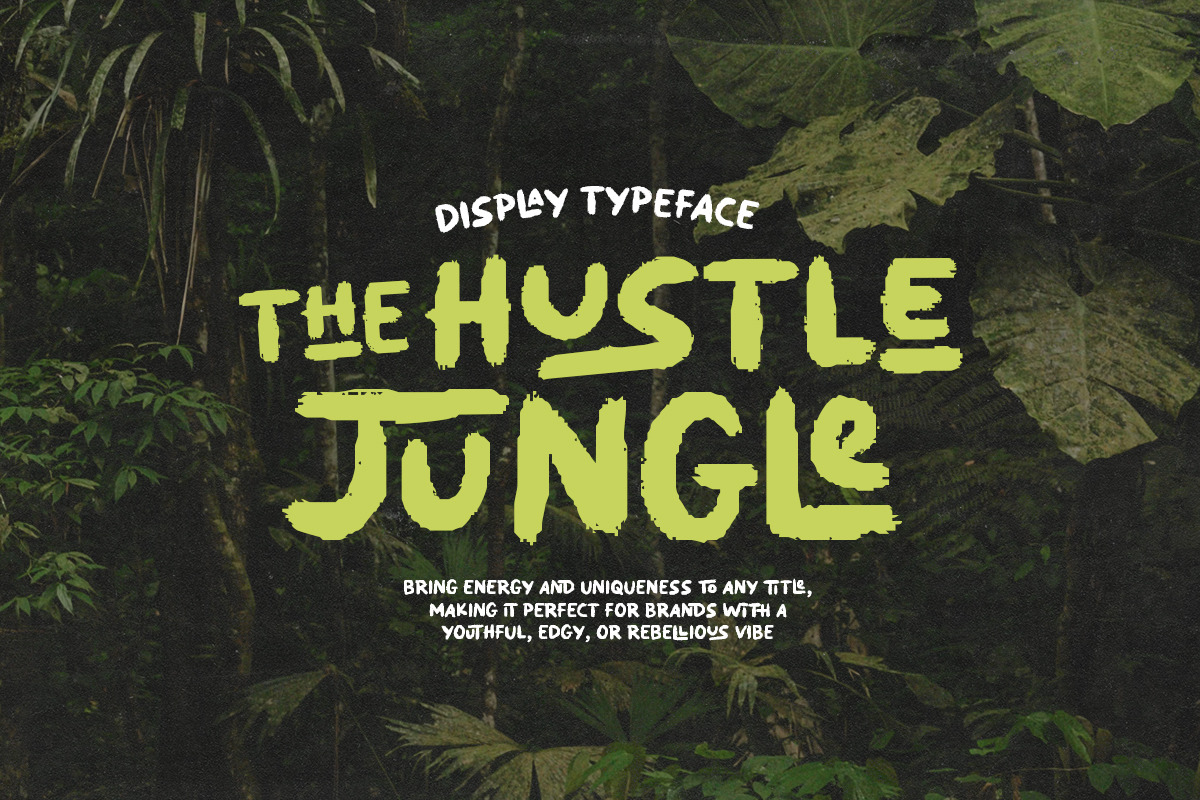
Hustle Jungle - Ligature Rough Font
Jungle Hustle is an adventurous font with rough and dirty edges. It comes with bunch of ligatures that will make your design and project look more appealing. With unique underline lowercase. you can combine both in the same words to make it stand out. Jungle Hustle also support multi language.